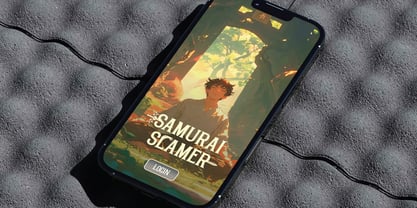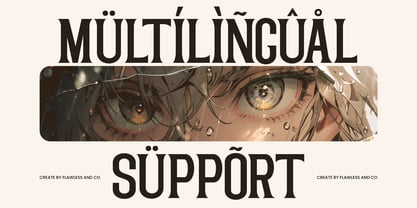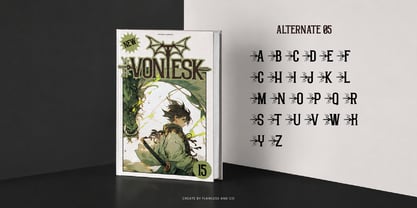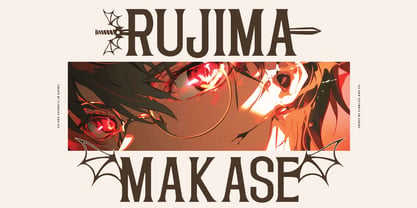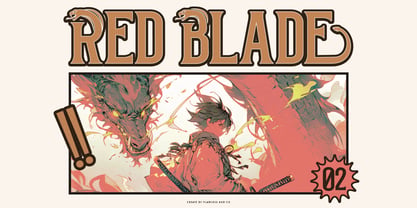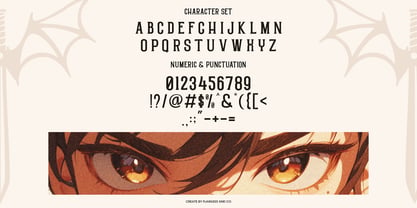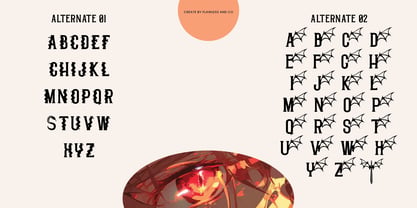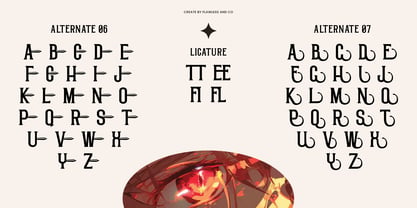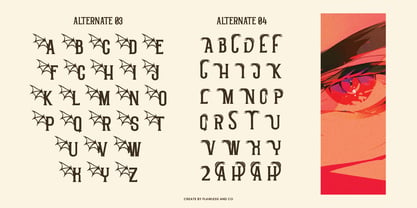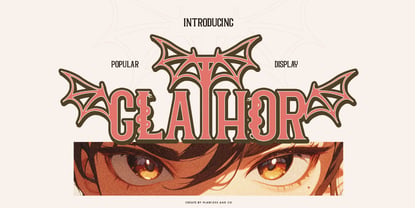
Glathor
A família de fontes Glathor foi desenhada por Achmad Yani e publicada pela Flawlessandco. Glathor contém 1 estilos. Saiba mais sobre esta família
Glathor is a striking display font that blends gothic aesthetics with fantasy elements, creating a bold and mysterious look. Its unique spiderweb ornaments add a distinctive decorative touch, while the solid and strong letterforms ensure excellent readability at any size. Perfect for titles, logos, posters, and designs that demand a powerful visual presence, Glathor is also ideal for fantasy, horror, and gothic-themed projects.
Features :
Multilingual, Uppercase alphabet A-Z, Lowercase alphabet a-z, Numbers 0-9, Some punctuation, Alternates & Ligatures